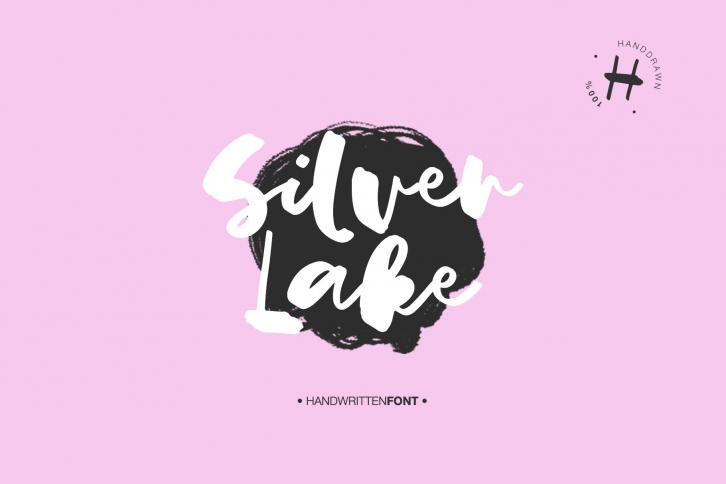
Hello dears! I continue to experiment with the thickness of the line and I think it turns out very interesting and unusual :)
Silver Lake will look beautiful on Christmas and holiday invitations, wedding invites and stationery, logos, and more. I love using it for emphasis words and pairing it with serifs
- Uppercase and lowercase
- Numbers and punctuation
- Foreign language support